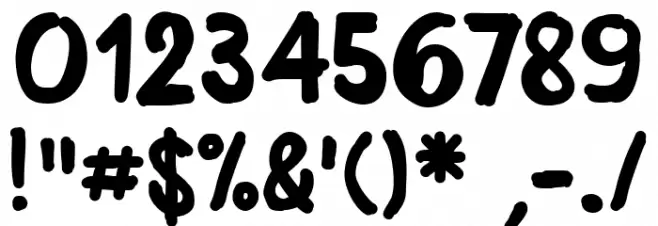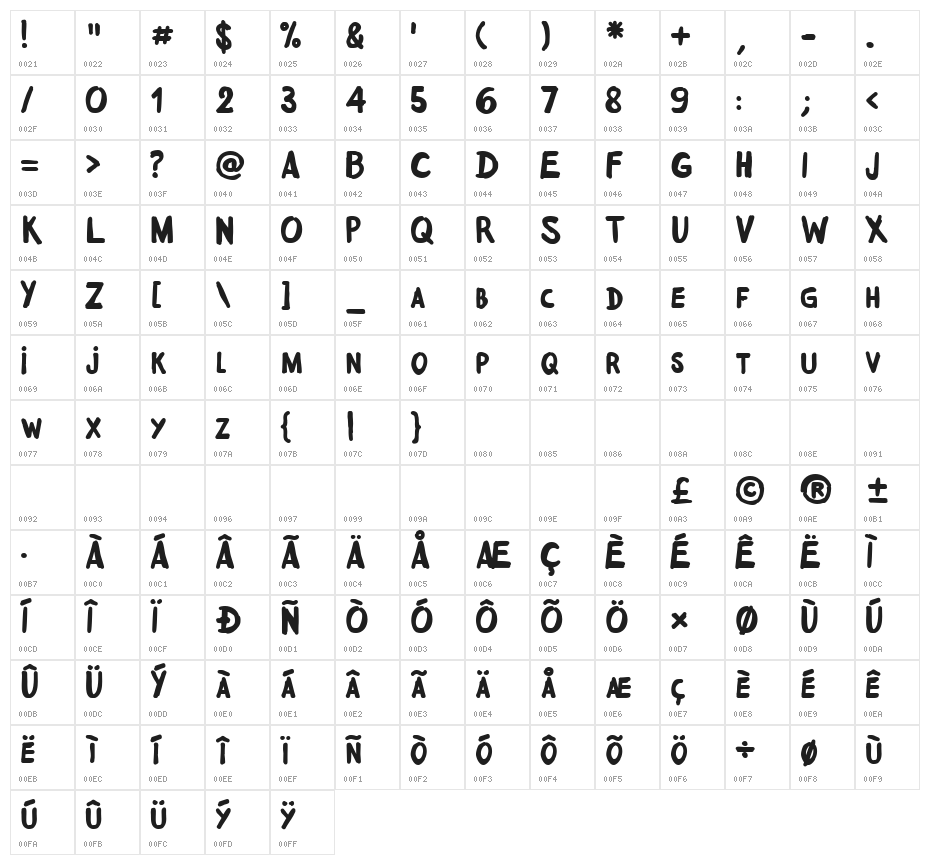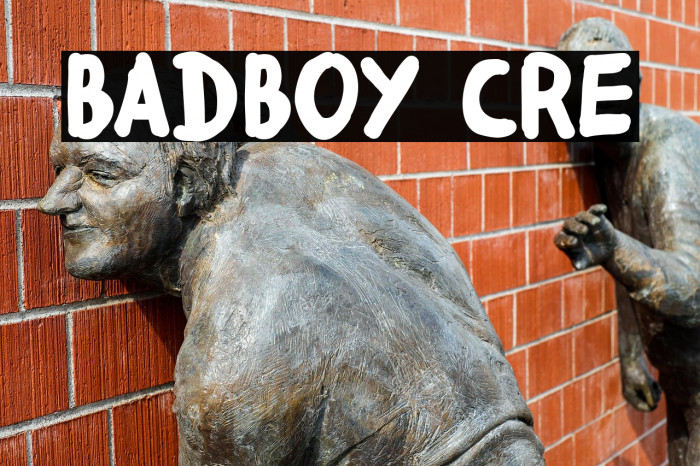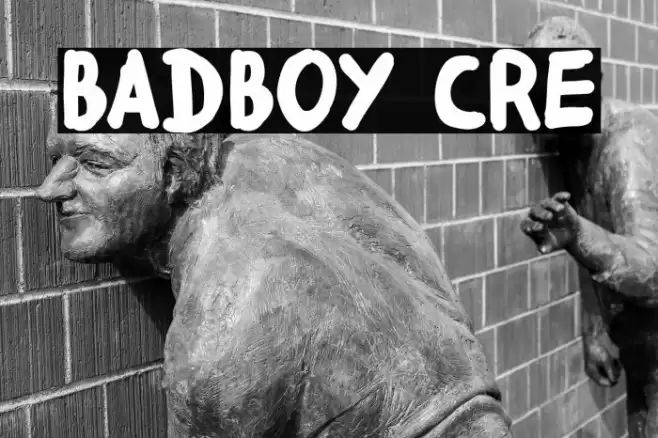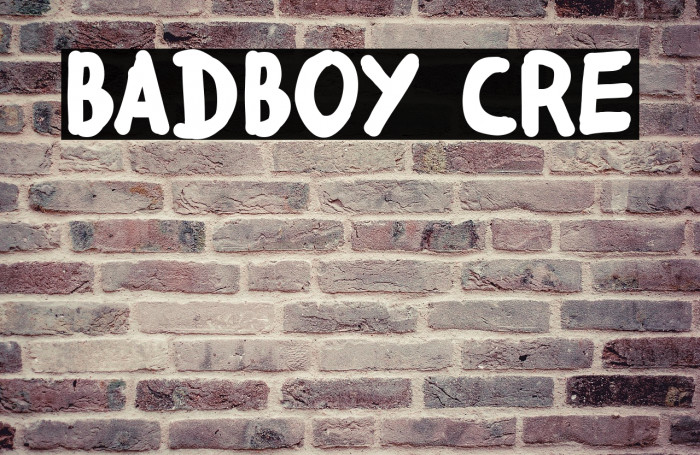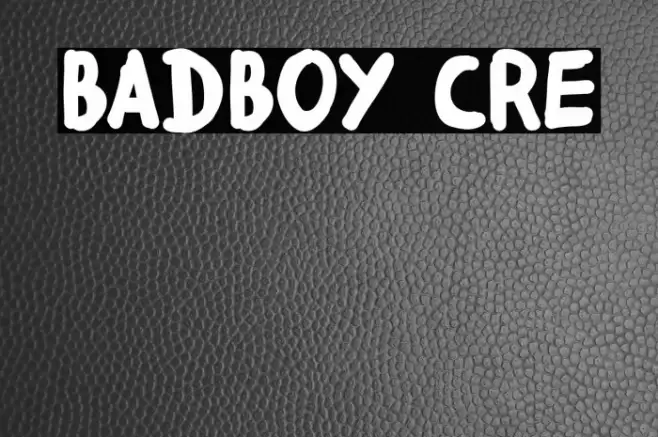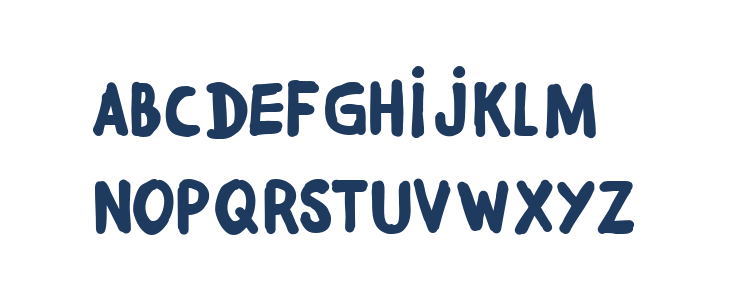
badboy cre Font
badboy cre Description
This font features a bold, playful style with a hand-drawn appearance. The characters are thick and rounded, giving them a friendly and approachable look. The uppercase and lowercase letters maintain a consistent weight, while the numbers and special characters follow the same design ethos. The strokes are uniform, contributing to a cohesive and harmonious appearance. The font's informal and whimsical nature makes it suitable for creative and casual projects. Its boldness ensures readability, even at smaller sizes, while the rounded edges add a touch of softness.